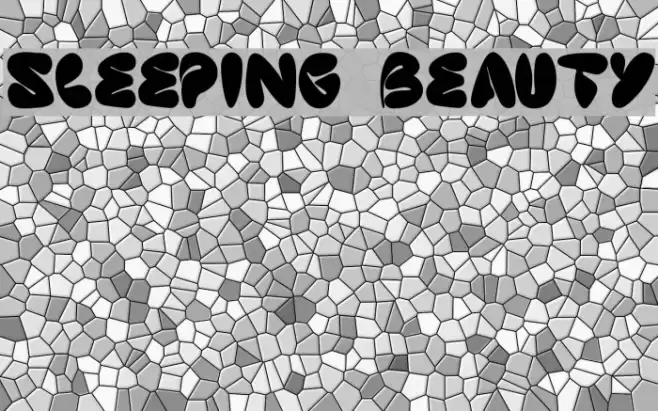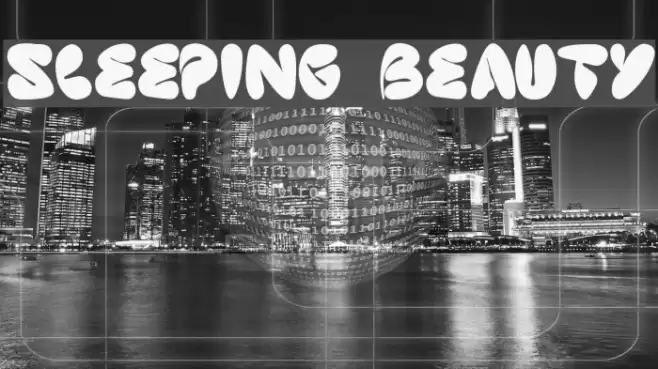
sleeping beauty Font
sleeping beauty Description
This font features bold, rounded characters with a playful and whimsical style. The letters are thick and have a bubble-like appearance, giving them a soft and friendly look. The design is consistent across both uppercase and lowercase letters, maintaining a uniformity that enhances its decorative appeal. The characters are closely spaced, contributing to its compact and cohesive appearance. This font is ideal for projects that require a fun and engaging aesthetic, such as children's books, playful branding, or creative posters. Its unique style makes it stand out, ensuring that any text set in this font will capture attention.
A bold, playful font with rounded, bubble-like characters from Uncategorized fonts.
- Proposed Projects: Ideal for children's books, playful branding, creative posters, and any project needing a fun aesthetic.
- Character Spacing: Tight
- Overall Style: Playful, Whimsical